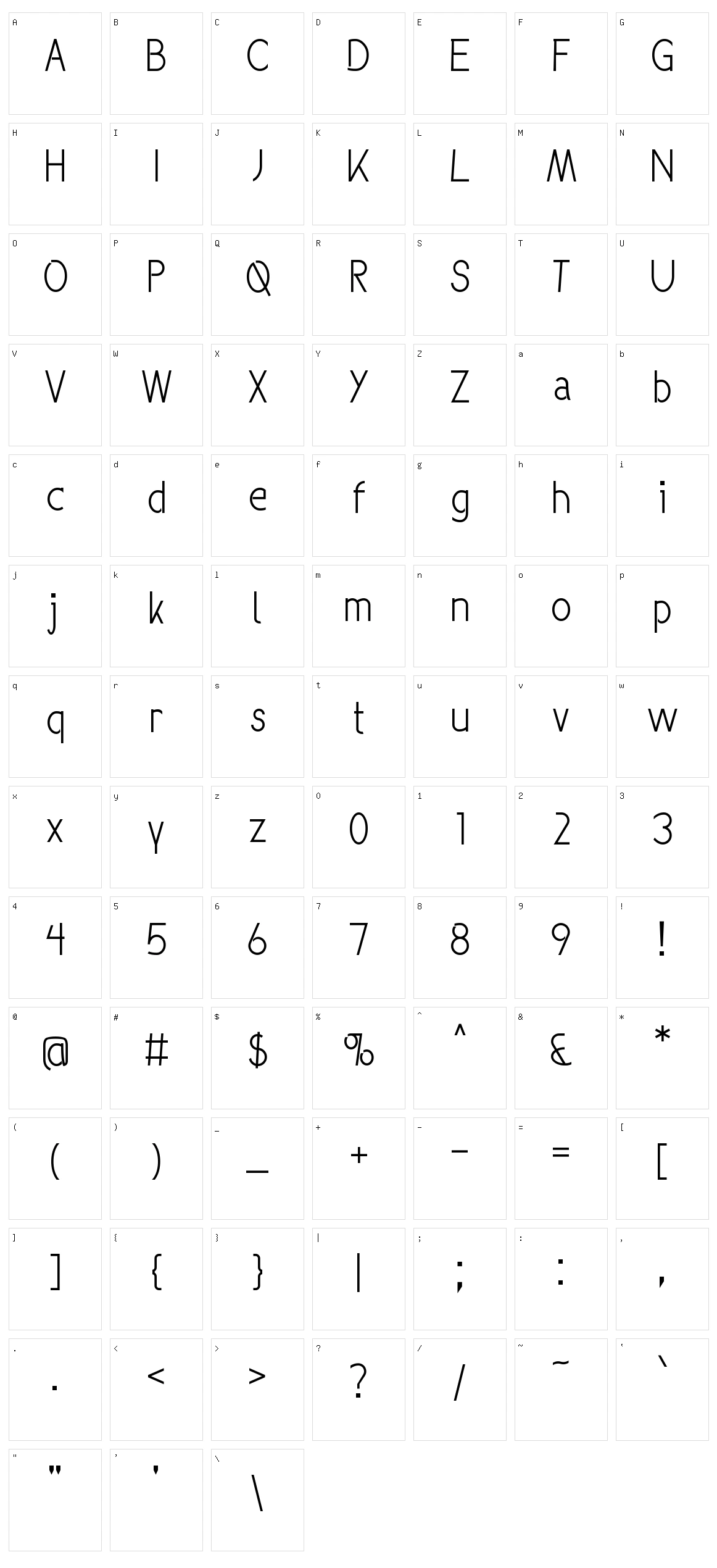
The free font Groove Next is carefully designed by G3Typefaces, showcasing a thoughtful balance of creativity and usability and falls under the Sans serif font style. When you download the ZIP file, it contains only 12.4 KB of font files, making it lightweight and quick to download. Please review the license details below to understand permitted usage and distribution rights. If license information is not available, we recommend using this font for personal projects only or contacting the author directly for commercial usage permissions.